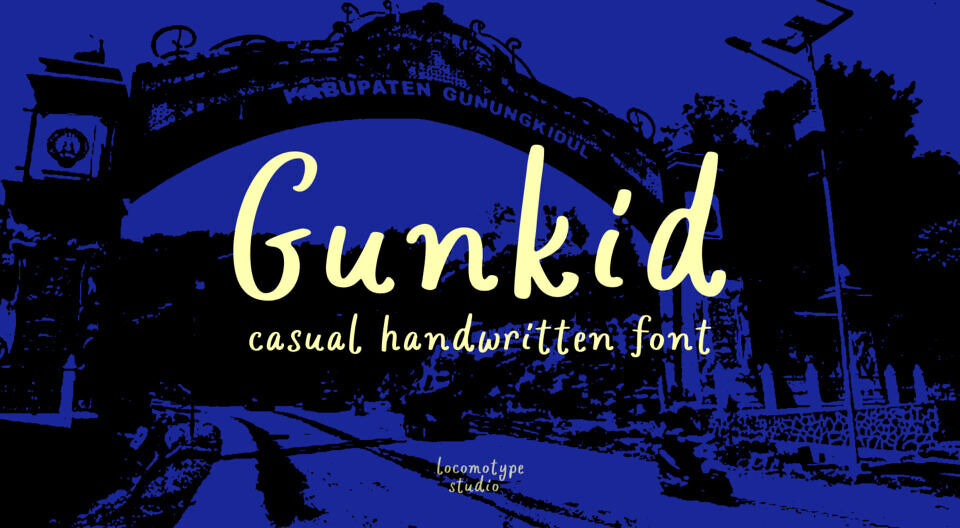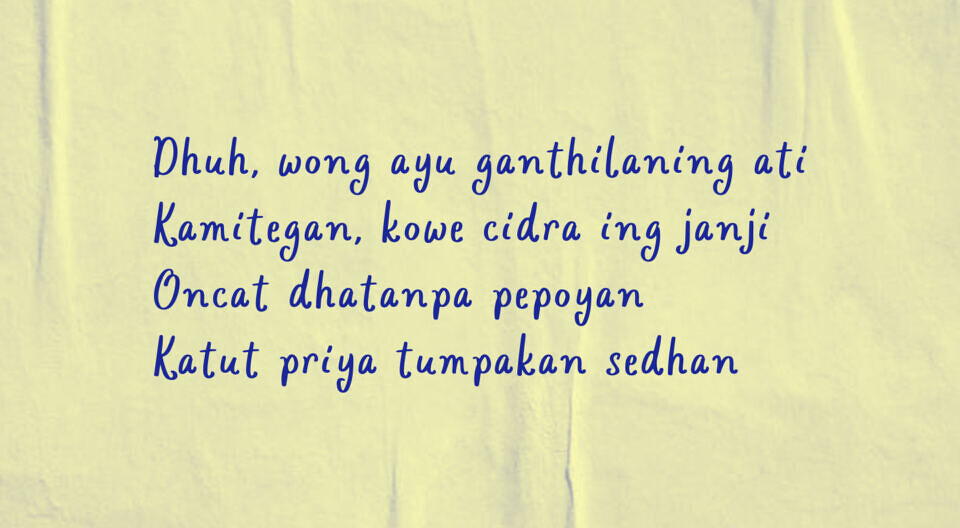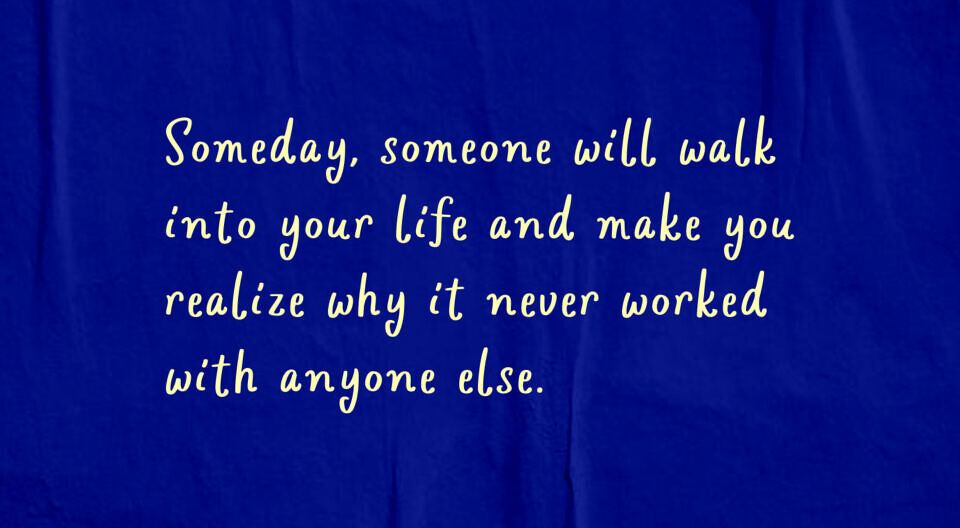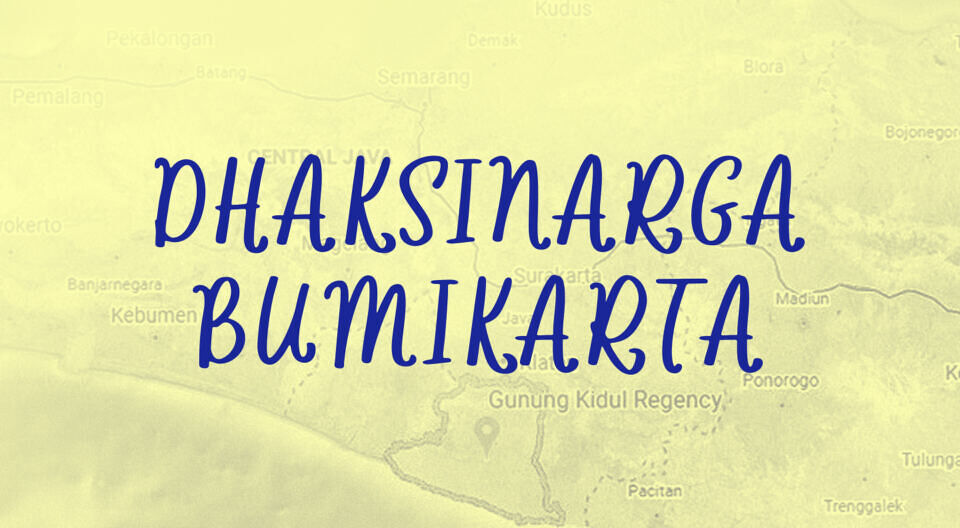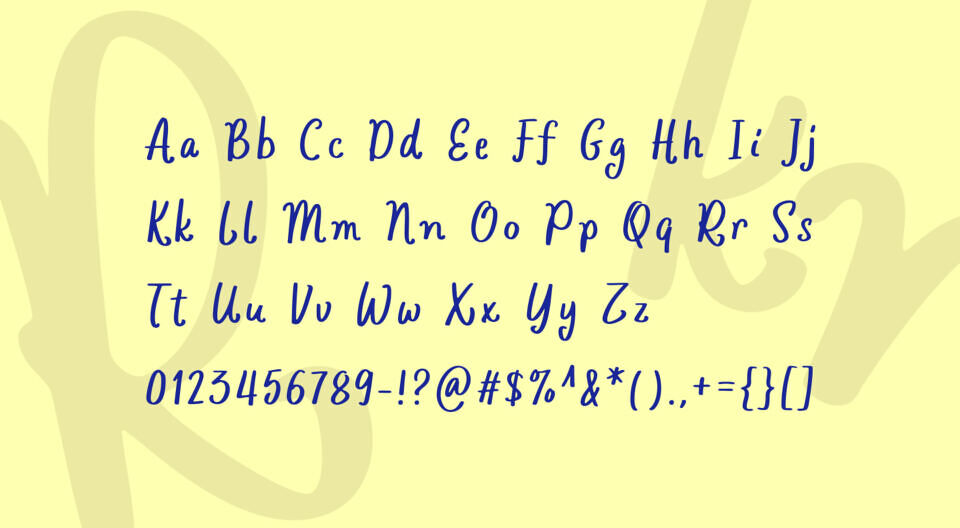
Gunkid font is a free font created by Locomotype based on handwritten style. It feels very warm and unique especially when you want to create a personal design like a diary, quote poster, Instagram feed, Facebook updates etc. You can even install it on your smartphone.